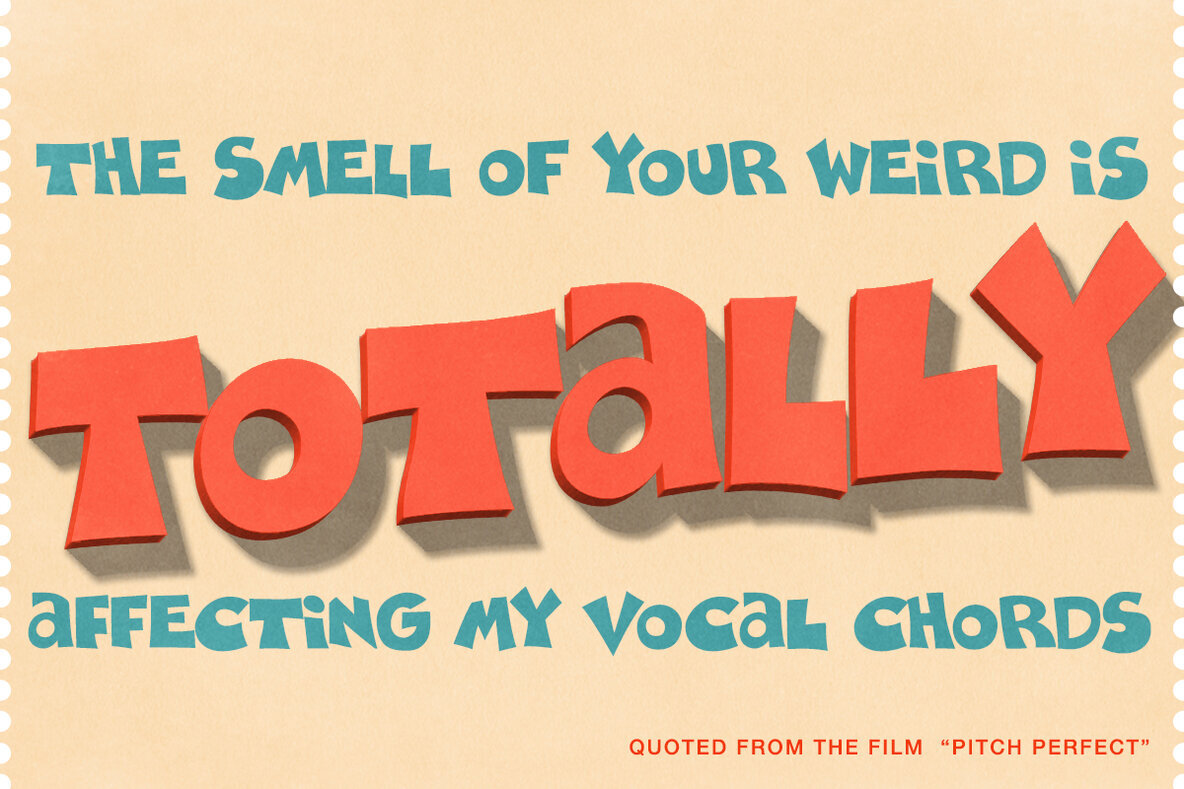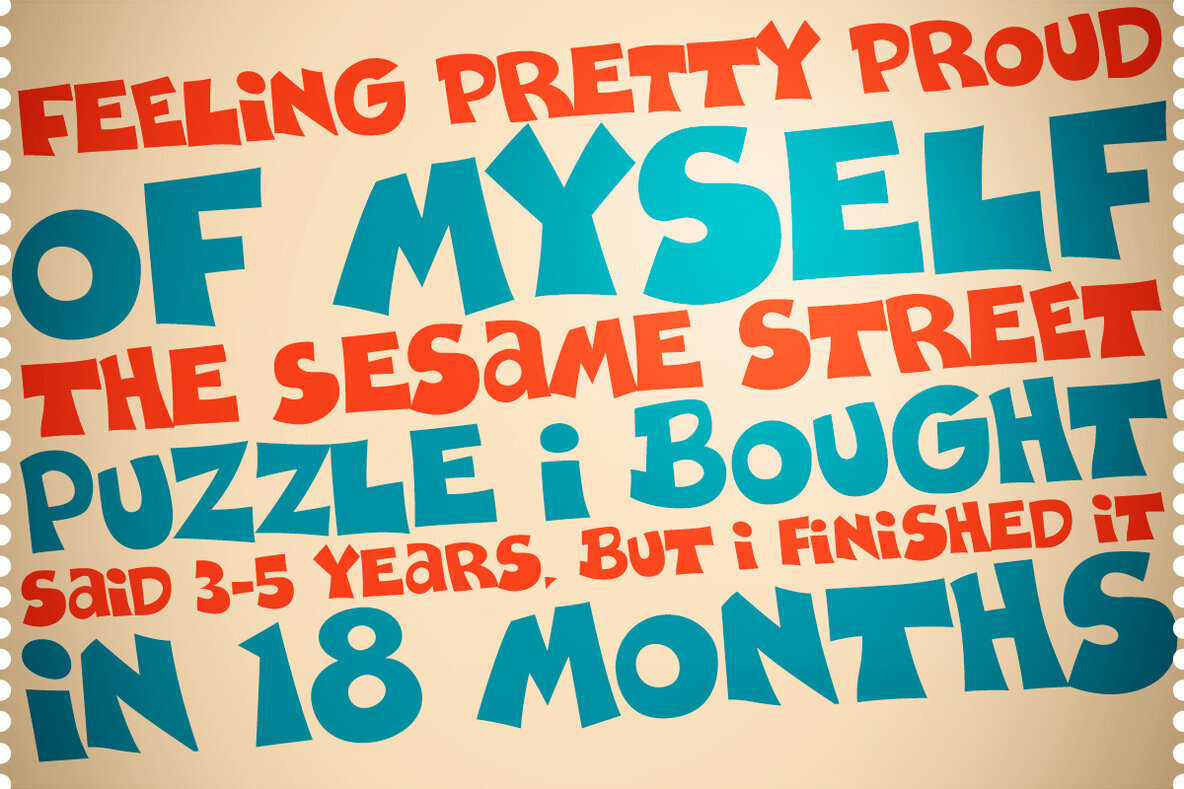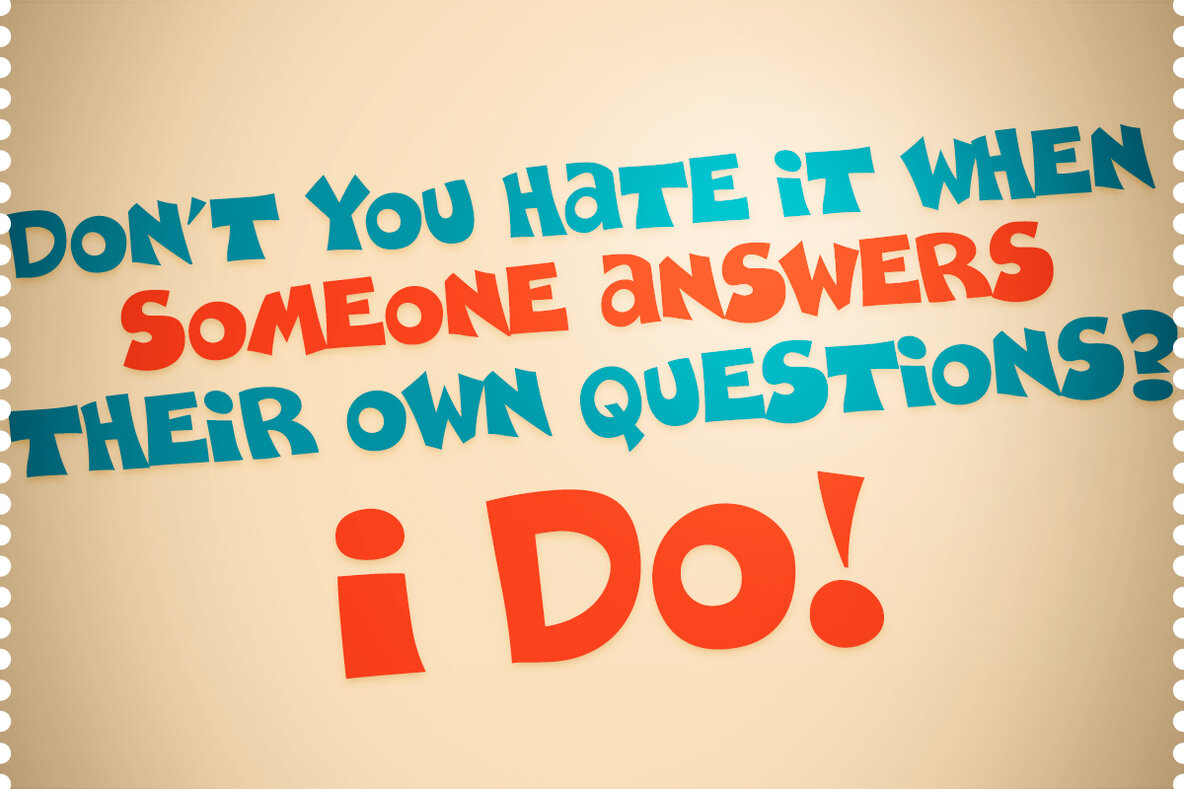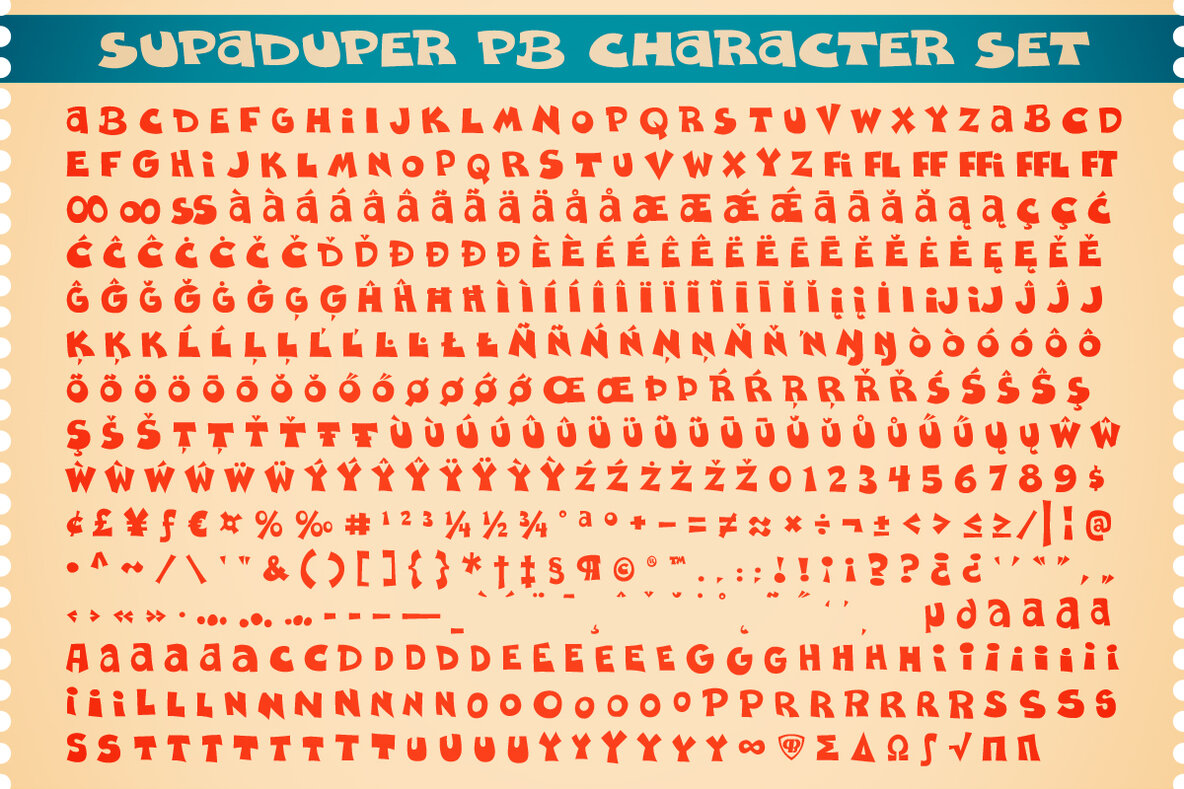
Supaduper Font
Supaduper PB
Supaduper PB brings a whimsical flair to your typography projects with its inspiration drawn from the quirky hand-lettered greeting cards of the 1980s. This font embodies a vibrant, animated style, capturing the charmingly awkward playfulness that defined the era's graphic design. Its familiar yet distinct appearance makes it a versatile choice for those seeking a nostalgic touch in their designs without relying on direct vintage references.
The font's engaging personality is perfect for projects that require a warm, approachable aesthetic. With its lively character strokes and dynamic letterforms, Supaduper PB injects fun into every word, offering a unique visual appeal that resonates with both retro enthusiasts and modern creatives. Ideal for personal projects or professional work, this font invites users to explore creative possibilities with a touch of nostalgic joy.